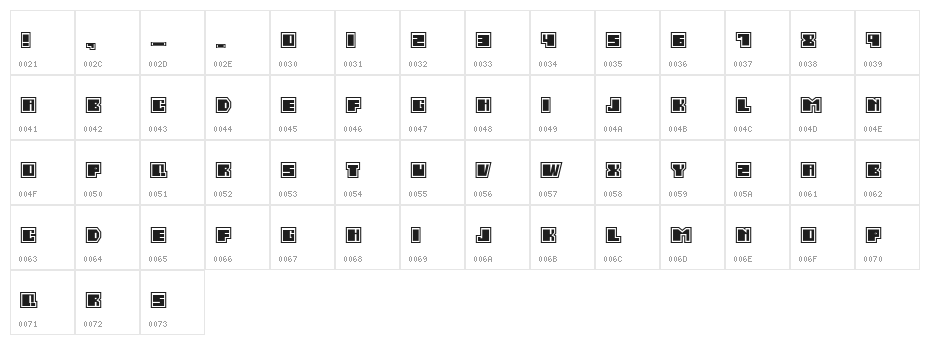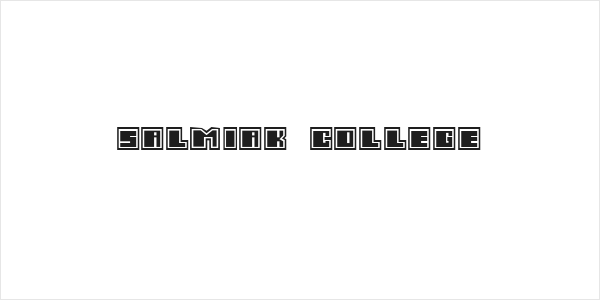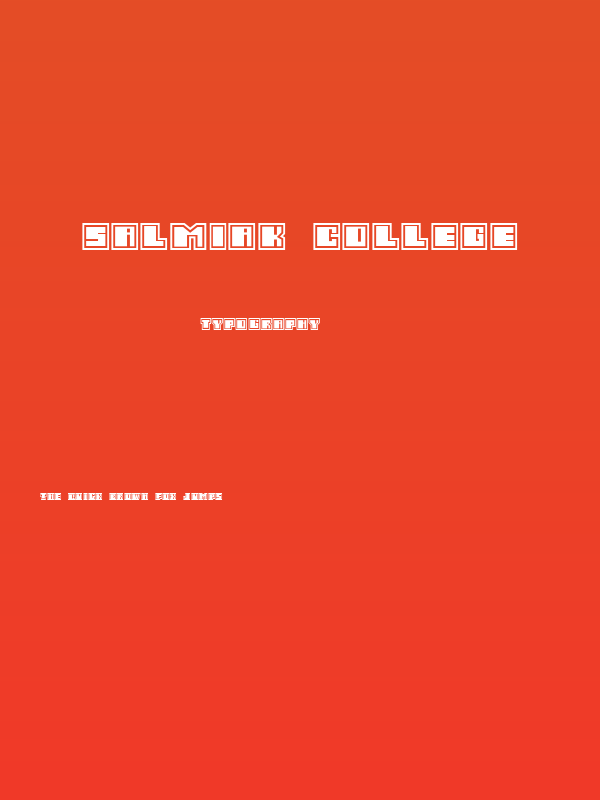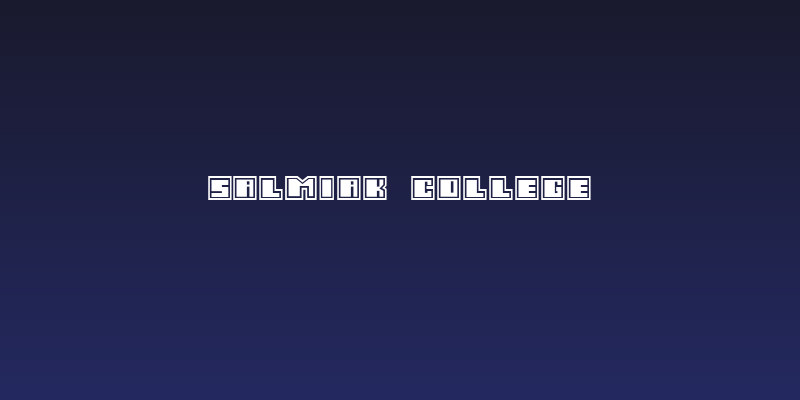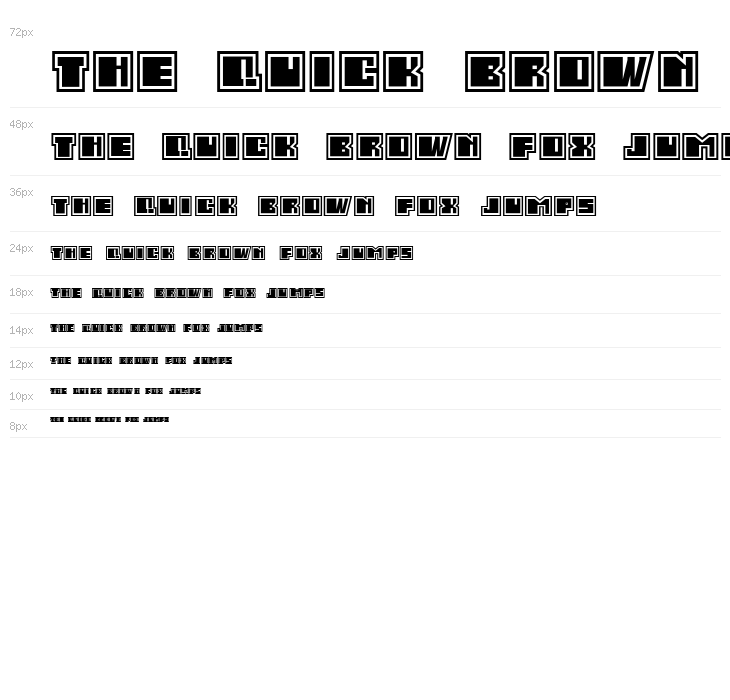
Salmiak College Font
Salmiak College Description
This font features a bold, geometric design with a strong emphasis on angular shapes and thick outlines. Each character is enclosed in a box-like structure, creating a striking and impactful appearance. The uppercase letters are uniform in height and width, giving a sense of balance and stability. The numbers and special characters follow the same design principles, ensuring consistency throughout the typeface. The overall look is modern and edgy, making it suitable for projects that require a bold statement.
| Proposed Projects | Ideal for posters, headlines, logos, and branding materials that need a strong visual impact. |